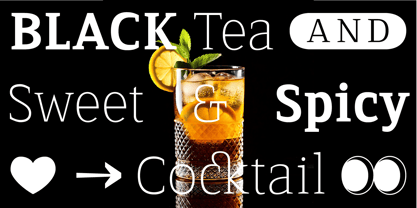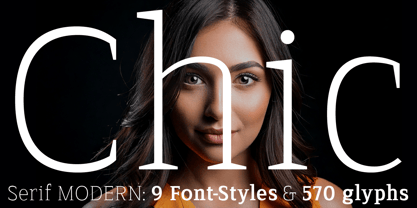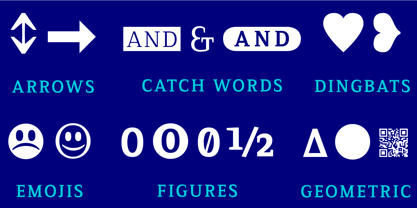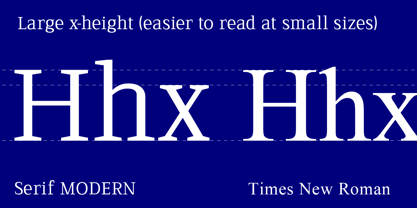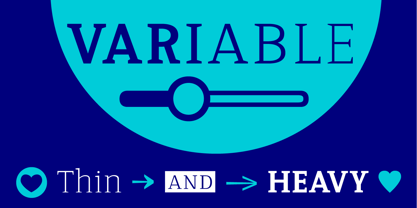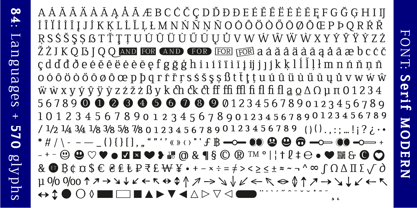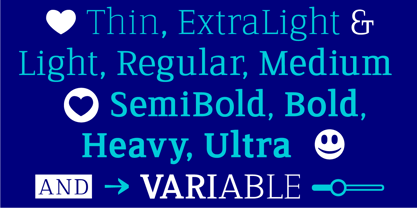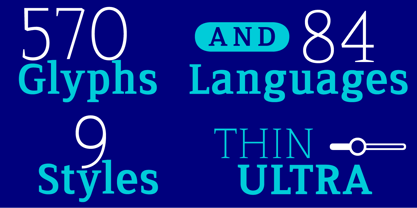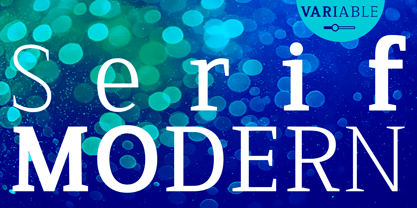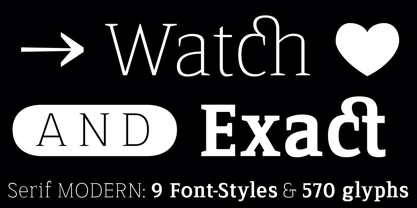
Serif Modern
The typeface Serif MODERN is designed from 2024–2025 for the font foundry Typo Graphic Design by the type designer Manuel Viergutz.
9 font-styles (Thin, Extra Light, Light, Regular, Medium, SemiBold, Bold, Heavy, Black) with 570 glyphs (Adobe Latin 3) for 84 languages incl. decorative extras like icons, arrows, catch words, dingbats, emojis, symbols, geometric shapes (type the word #LOVE for ❤ as OpenType-Feature dlig) and stylistic alternates (2 stylistic sets).
For use in logos, packaging for drinks & food, magazines, posters, advertisement plus as webfont for decorative headlines. The font works best for display size.
Font Name: Serif MODERN
Font Styles: 9 font-styles (Thin, Extra Light, Light, Regular, Medium, SemiBold, Bold, Heavy, Ultra)
■ Font Cate­gory: Variable Sans Serif for head­line size
Glyph Set: 570 glyphs (Adobe Latin 3 incl. decorative extras)
■ Specials: Capital Letter Sharp S (German Versal Eszett U+1E9E) ẞ, Catchwords like FOR, Emojis like Smiley ☺ ☻, Symbols like Heart ♥︎, arrows ➡︎, Geometric Shapes ▲ ⚫️ , Variable Font
■ Design Date: 2024–2025
■ Type Desi­gner: Manuel Viergutz
Designers: Manuel Viergutz
Foundry: TypoGraphicDesign